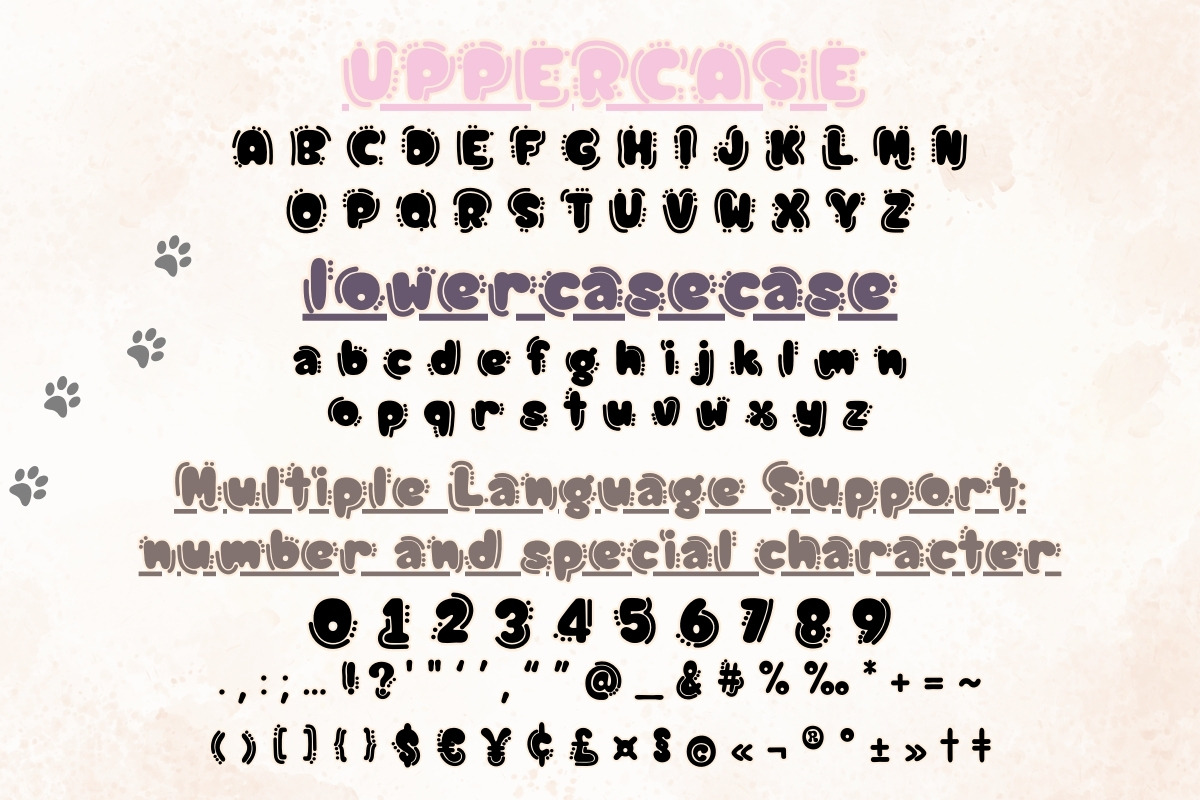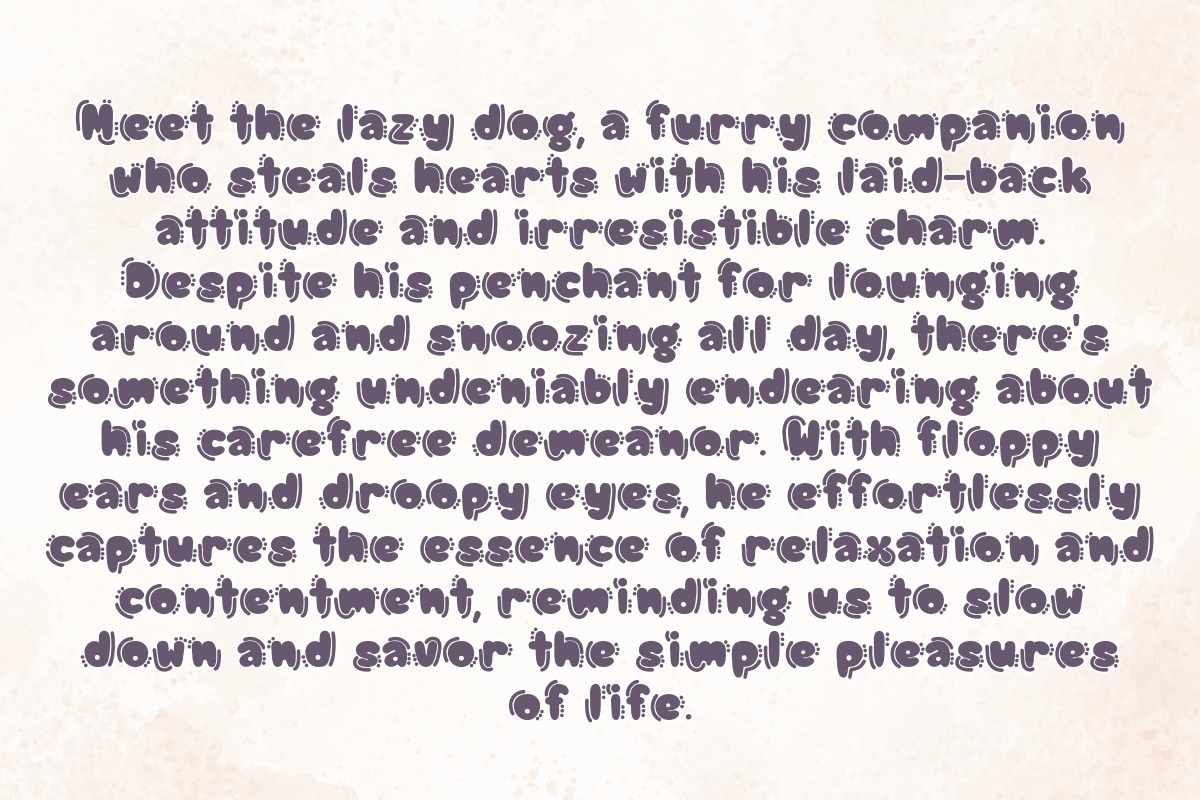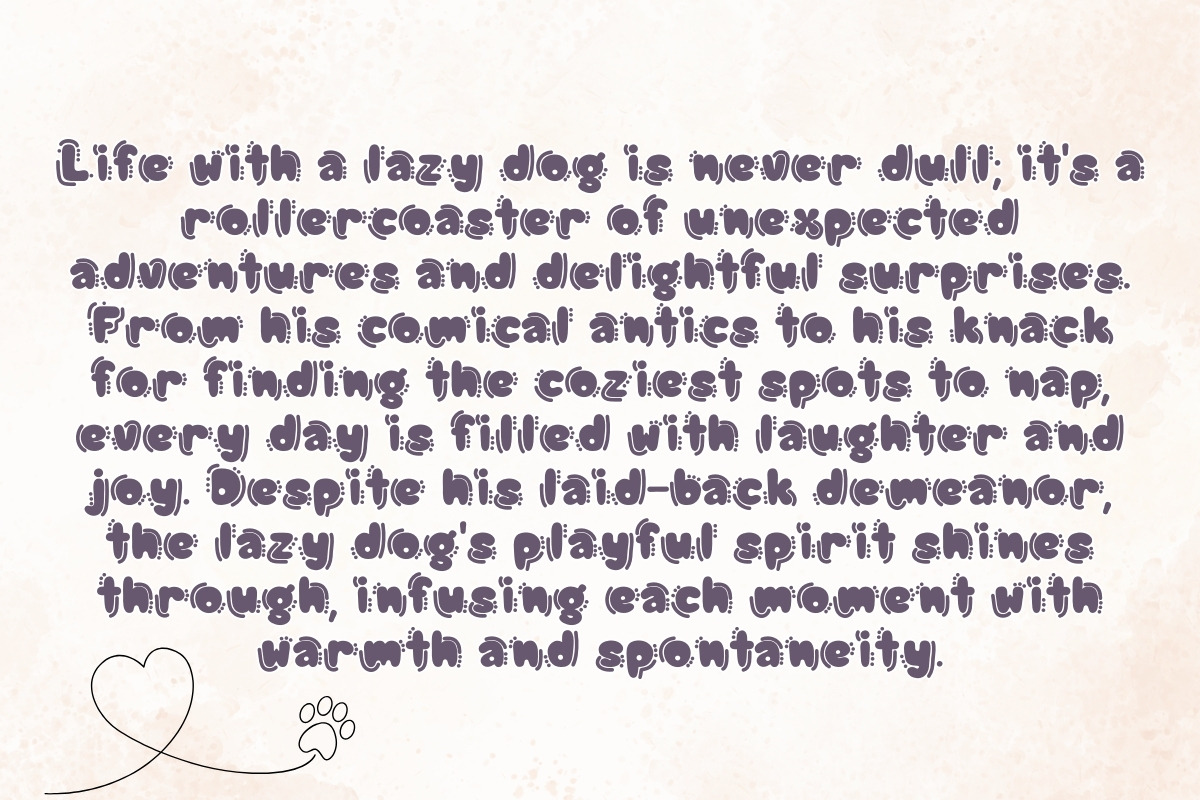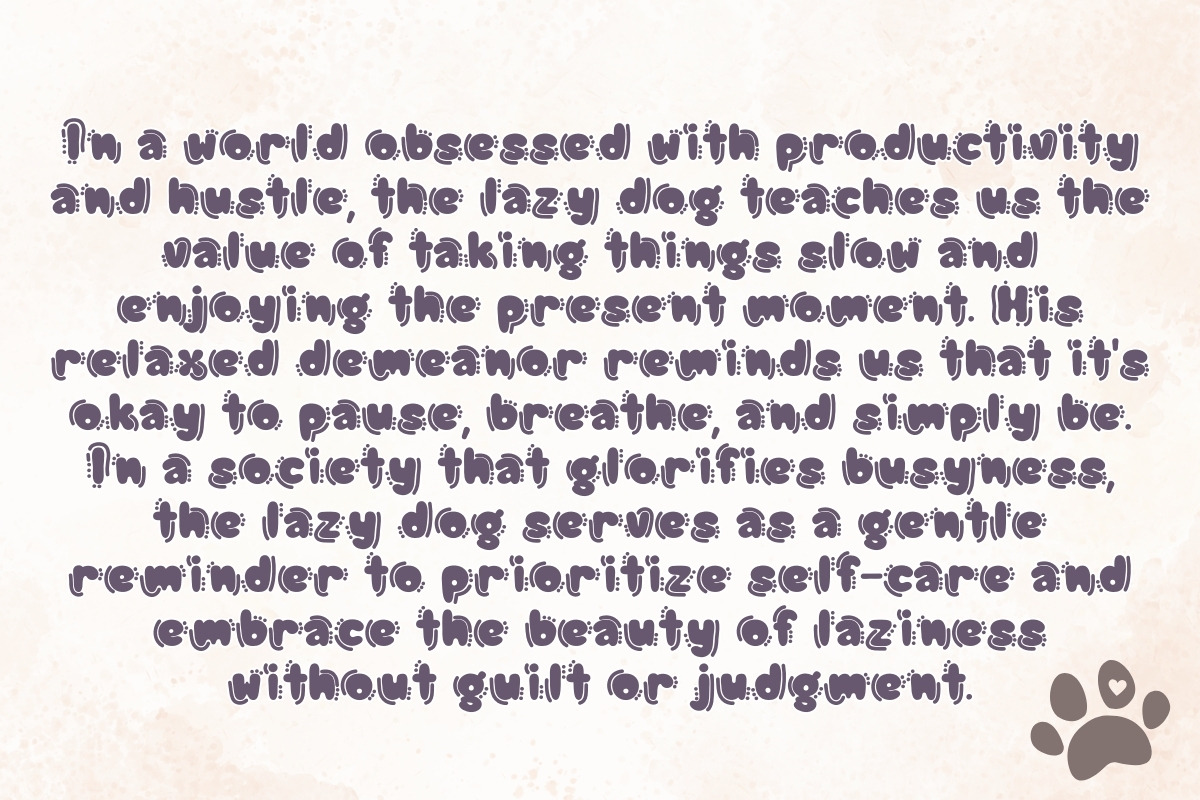
LAZY DOG - Handwritting
Introducing "Lazy Dog" - a charming handwritten font with its own unique personality. This font boasts whimsical curves and playful strokes, reminiscent of a lazy dog's carefree demeanor. Each letter carries the essence of relaxation and warmth, making it perfect for adding a touch of cuteness and character to your designs.